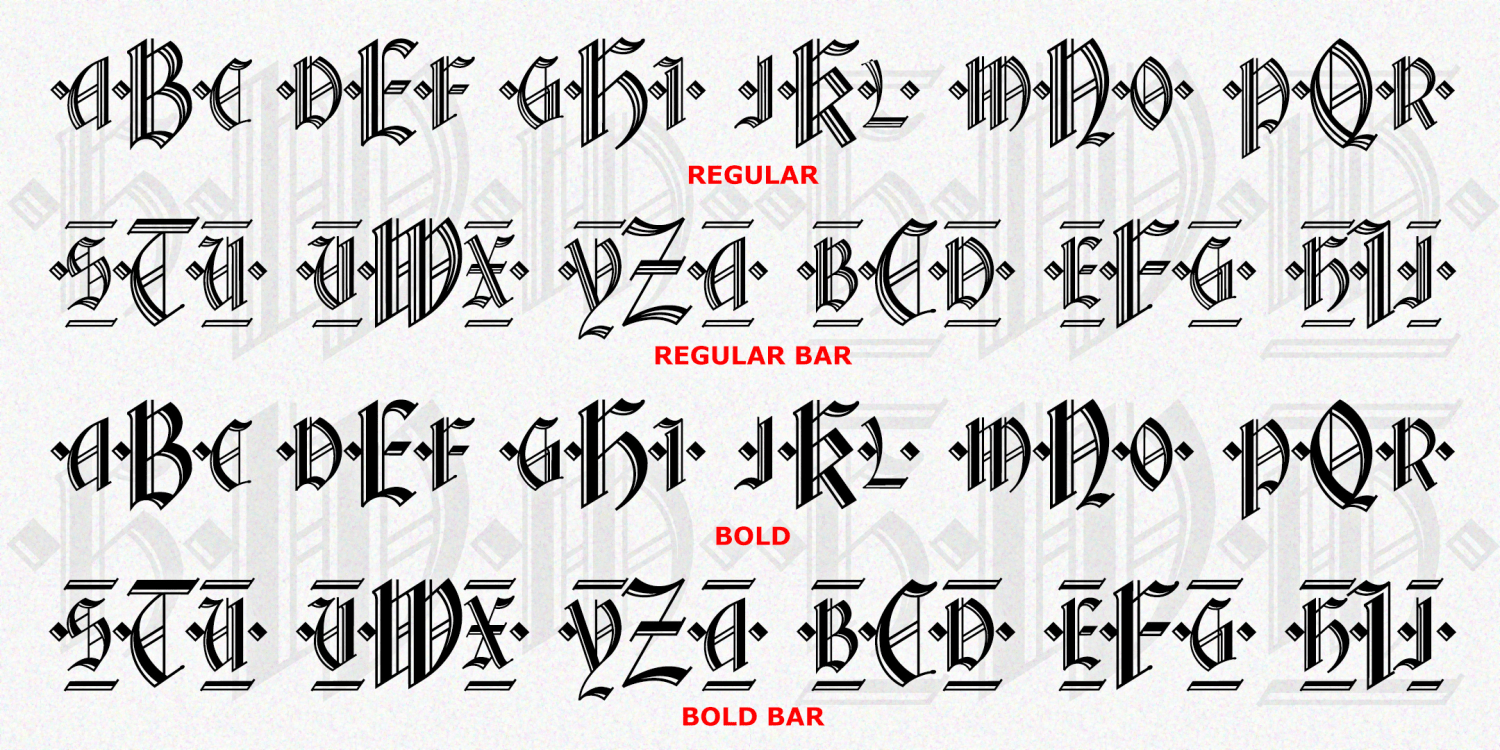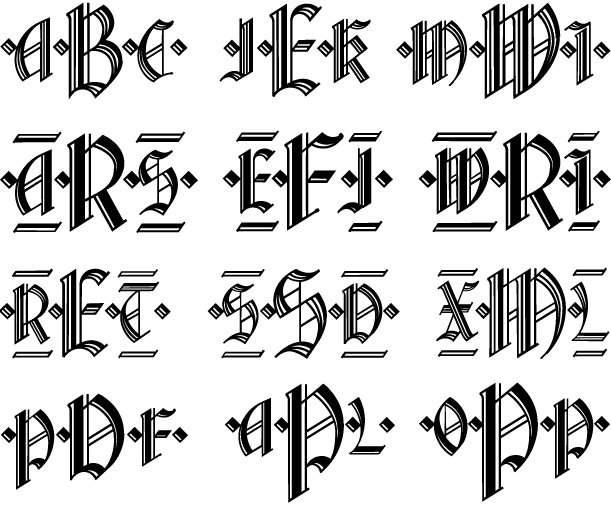
HomeFont BrosDingbatWaldorf Monograms DingbatMonograms Waldorf Monograms FacebookXPinterestWhatsApp 1 of 2 About Waldorf Monograms is a set of four fonts to create elegant custom blackletter monograms based on Waldorf Text, in two weights, with and without decorative details.  DOWNLOAD NOW People also explored Bellanaisa Font Beach Stardaw Duo Font Blue Snow Font The Bellagista Font Sunflower Font Wanderlove Font Wenzoule Font Bigboss Lf Font Zolan Mono BTN 301 0 TagsWaldorf Monograms Font Previous articleFlax JYNext articleLast Episode LEAVE A REPLY Cancel reply Comment: Please enter your comment! Name:* Please enter your name here Email:* You have entered an incorrect email address! Please enter your email address here Website: Save my name, email, and website in this browser for the next time I comment. Personal Use Free Mike Ferrari 16017 Personal Use Free Read more about this font Bosk Personal Use Free Read more about this font Autumn Flowers Font Personal Use Free Read more about this font Septhine Personal Use Free Read more about this font BLOG 5 Fonts That Will Dominate Design Trends in 2026 5 Fonts for 2026 That Will Dominate Design Trends Typography plays a critical role in visual communication, and as we look ahead to 2026, it’s... To increase your work productivity, choose the most readable fonts. Best Fonts for YouTube Videos: Make Your Thumbnails Stand Out The 10 Best Handwriting Fonts to Add Personality to Your Designs